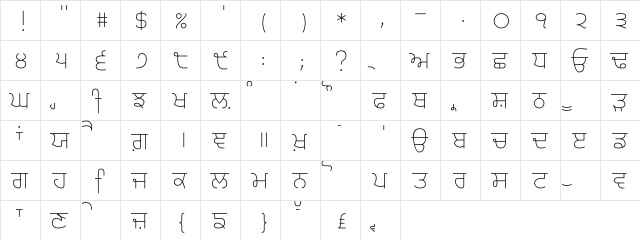
Gurvetica a2 Extra-Light Light
Design Context for Gurvetica a2 Extra-Light Typeface
Gurvetica a2 Extra-Light is a composed and adaptable typeface that performs quietly and consistently across a wide range of design contexts. Its slender proportions lend an understated elegance to any composition.